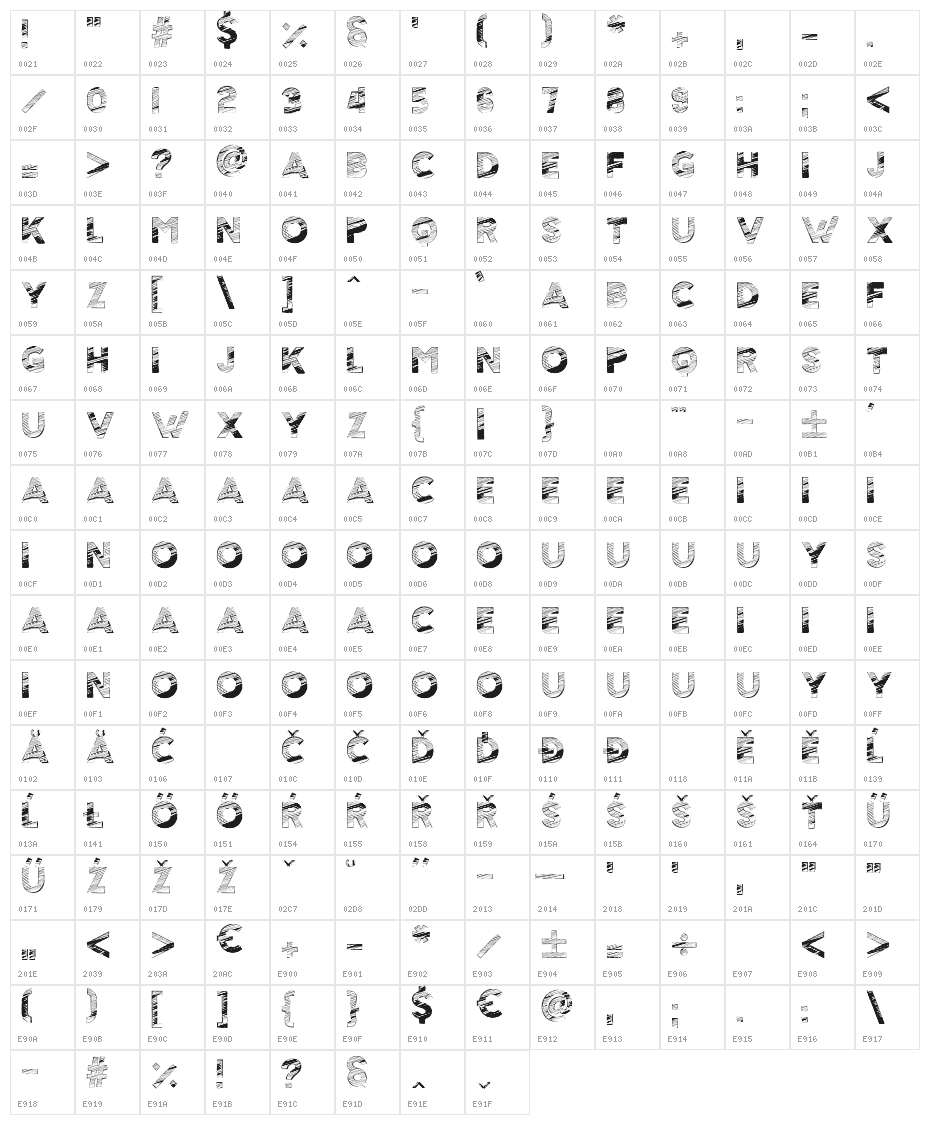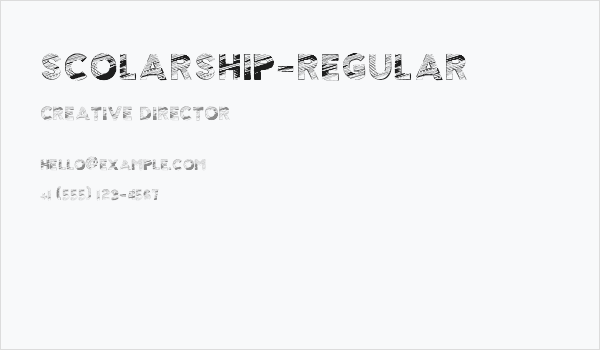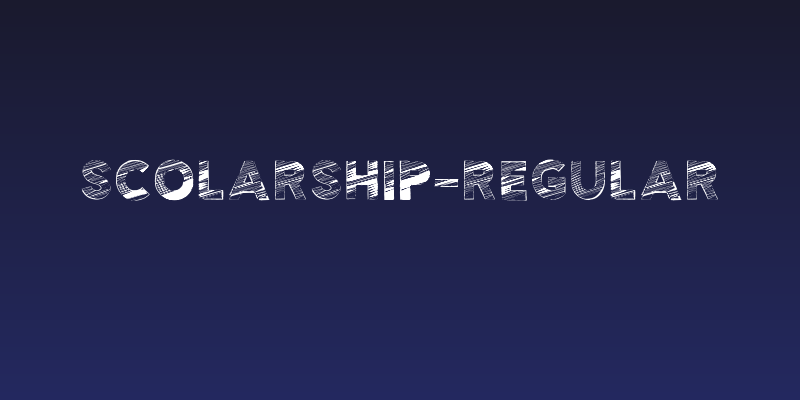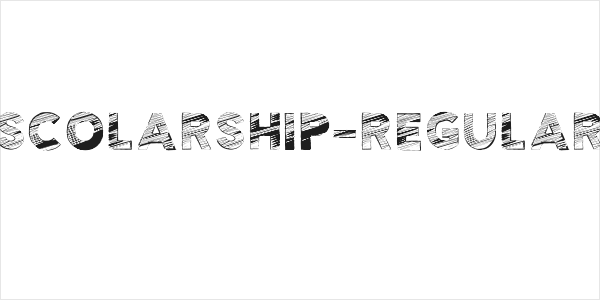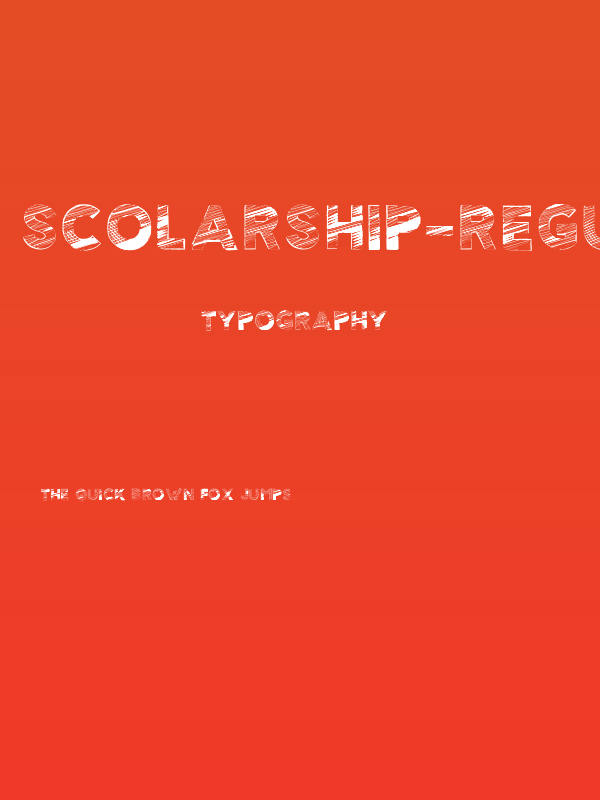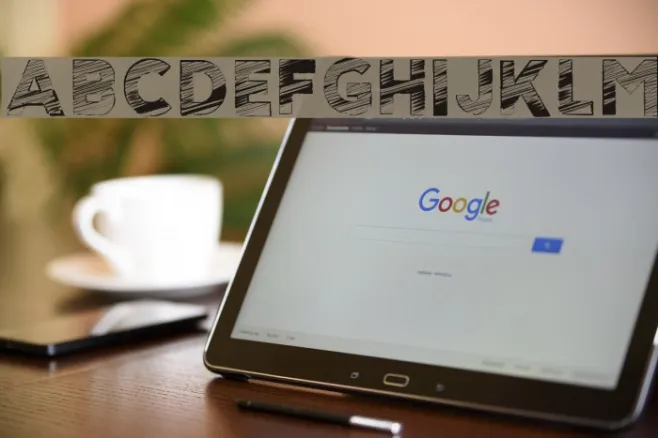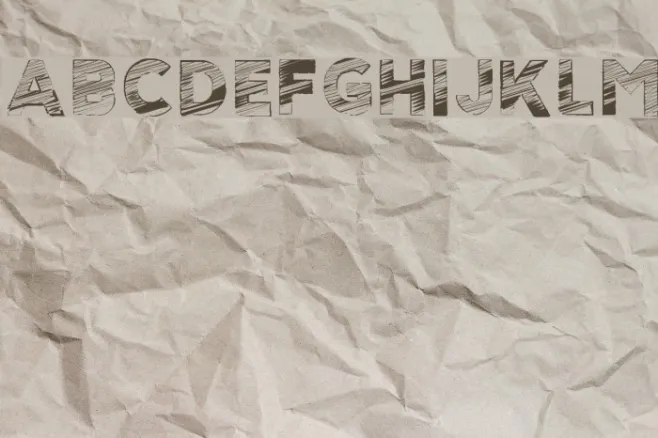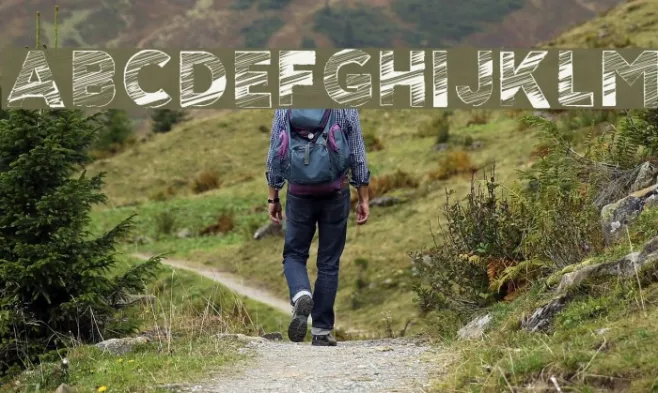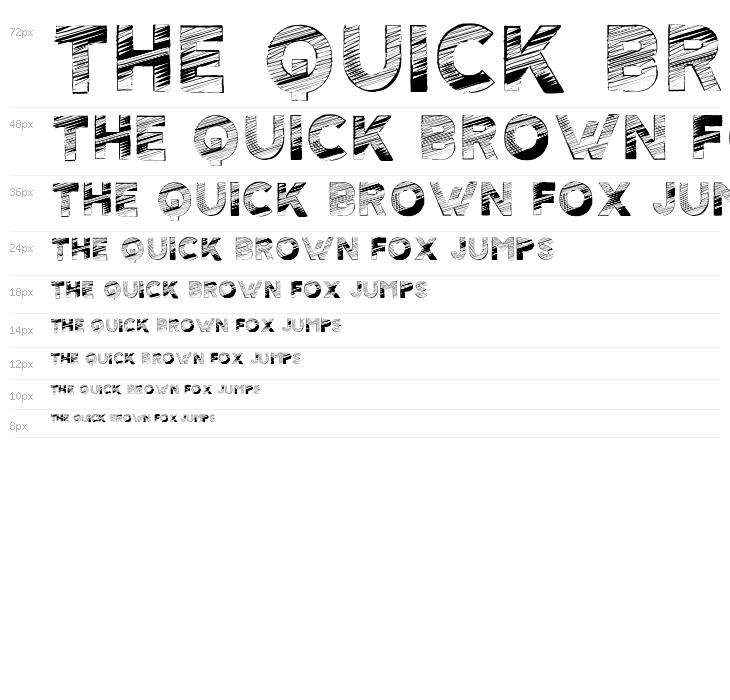
Scolarship-Regular Font
Scolarship-Regular Description
This font features a unique, hand-drawn style with a sketch-like appearance. Each character is filled with diagonal lines, giving it a textured, artistic look. The letters are bold and uppercase, with a playful yet structured design. The numbers and special characters follow the same aesthetic, maintaining consistency across the set. This font stands out due to its creative and informal style, making it suitable for projects that require a distinctive and eye-catching typeface.
| Overall Style | Artistic, Playful |
| Use Case | Headlines, Posters, Creative Designs |
| Proposed Projects | Ideal for creative projects such as posters, art-related branding, children's book covers, and any design that benefits from a playful and artistic touch. |